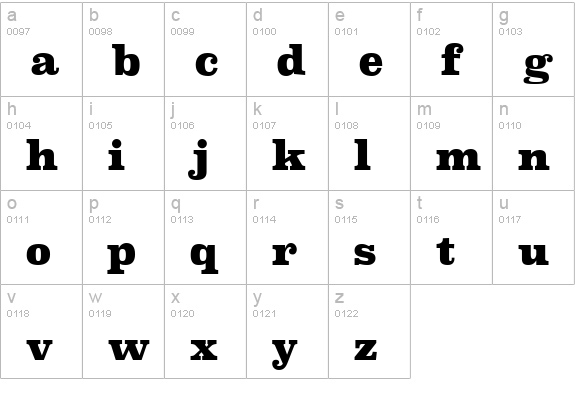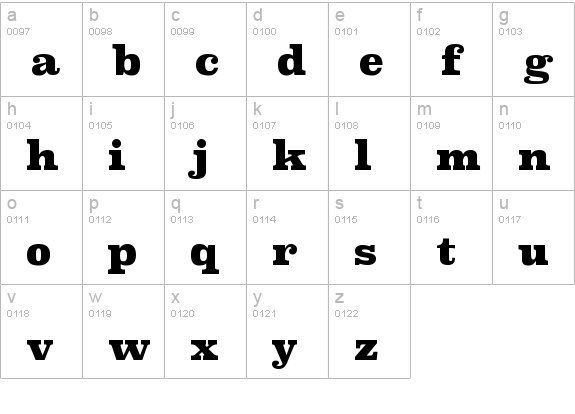
Superclarendon Bl font is a modern and elegant typeface that exudes sophistication and style. With its clean lines and distinctive serifs, this font is perfect for a wide range of design projects, from branding to editorial design. The Superclarendon Bl font is versatile and easy to read, making it a great choice for both print and digital applications. What sets Superclarendon Bl font apart is that it is available for free download at FontsMarket.com. This means that you can easily access this high-quality font without any cost, making it a valuable resource for designers and creatives looking to elevate their work. Whether you're working on a logo, website, or marketing materials, Superclarendon Bl font is sure to make a lasting impression. Download it today and add a touch of sophistication to your designs!